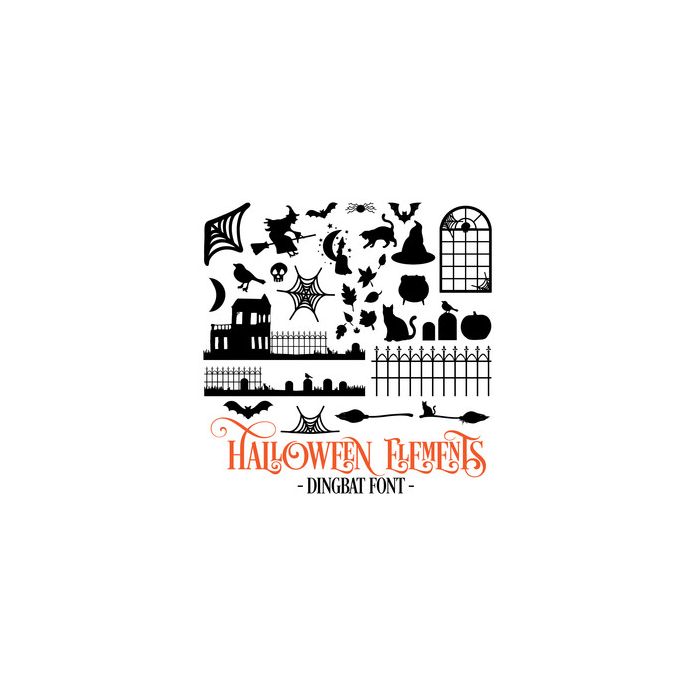
Halloween Elements Dingbat Font. Includes 26 Halloween elements perfect for scene building or embellishments. All are assigned to an upper case letter starting with 'A' or can be accessed via glyphs. For more design ideas, coordinating designs & products and inspiration, please visit my blog http://www.sarahhurleyblog.com